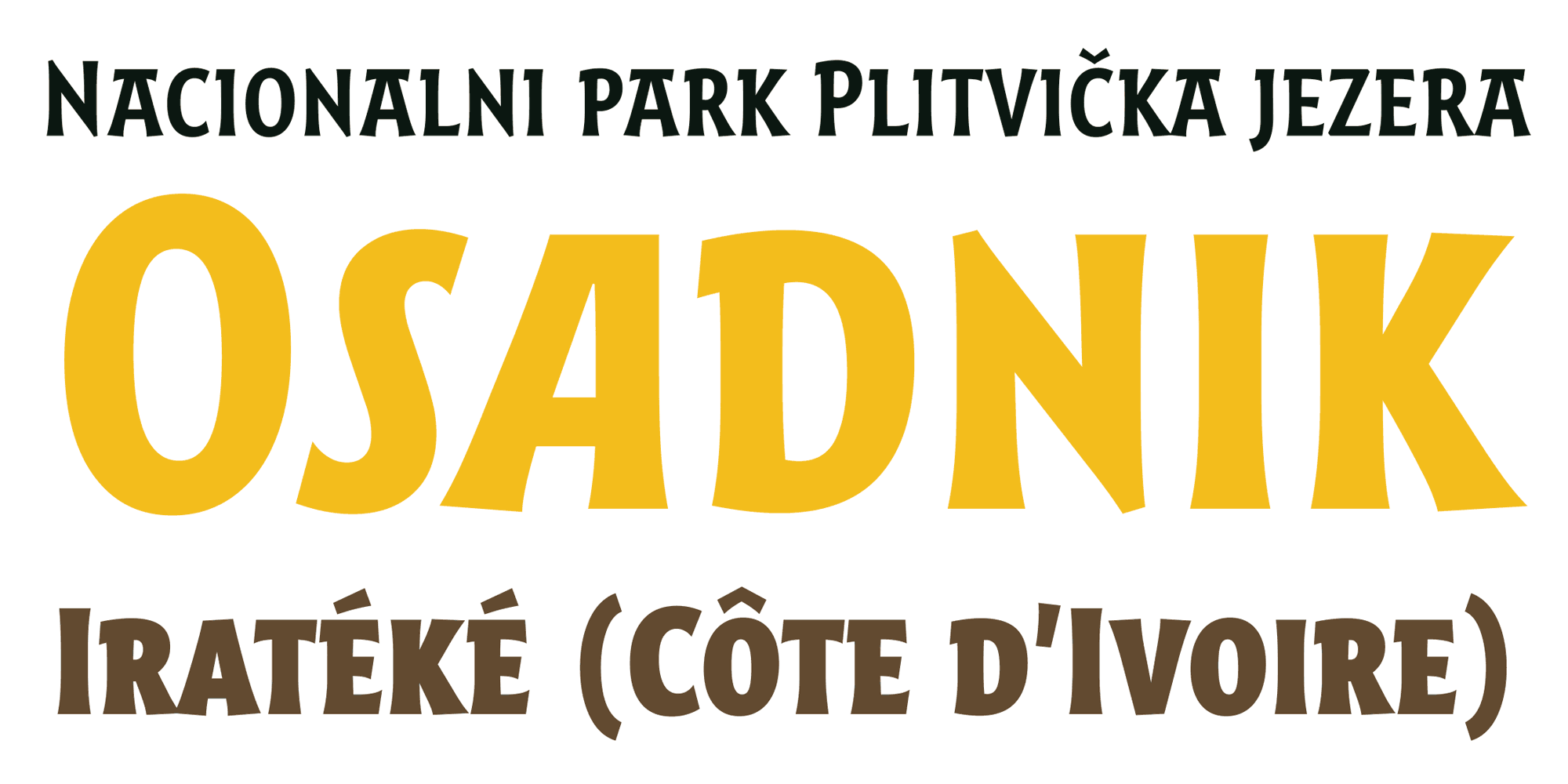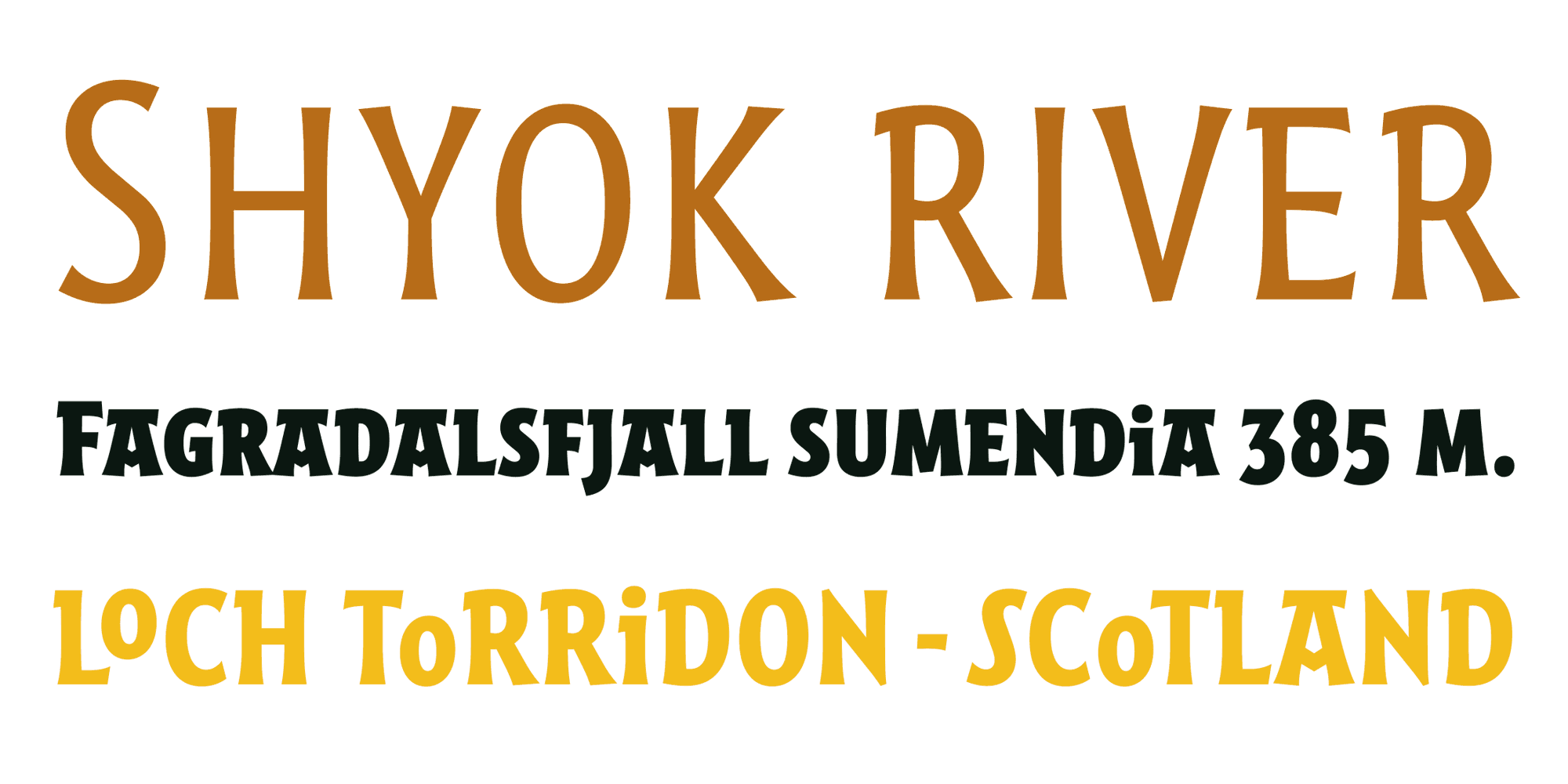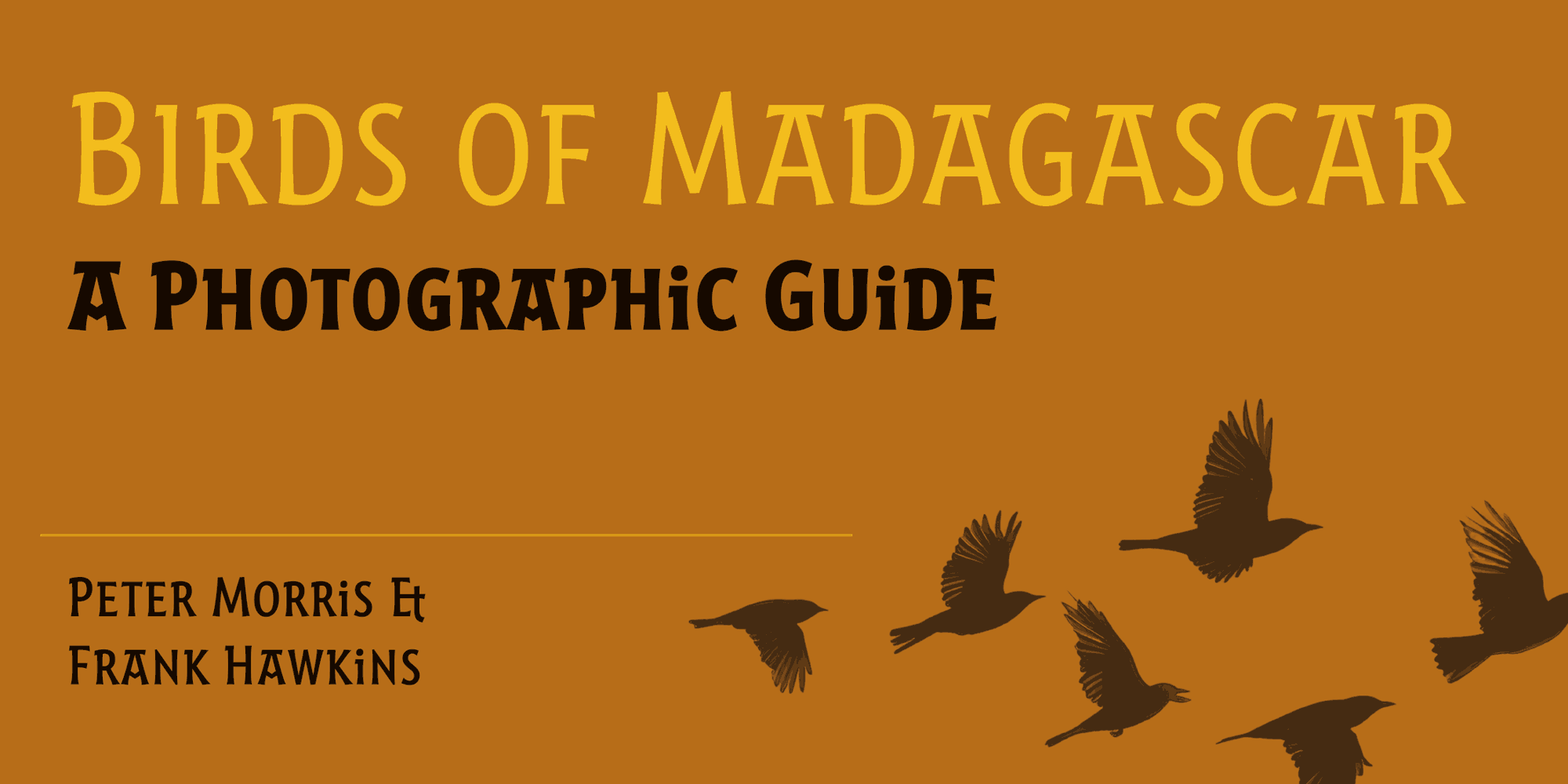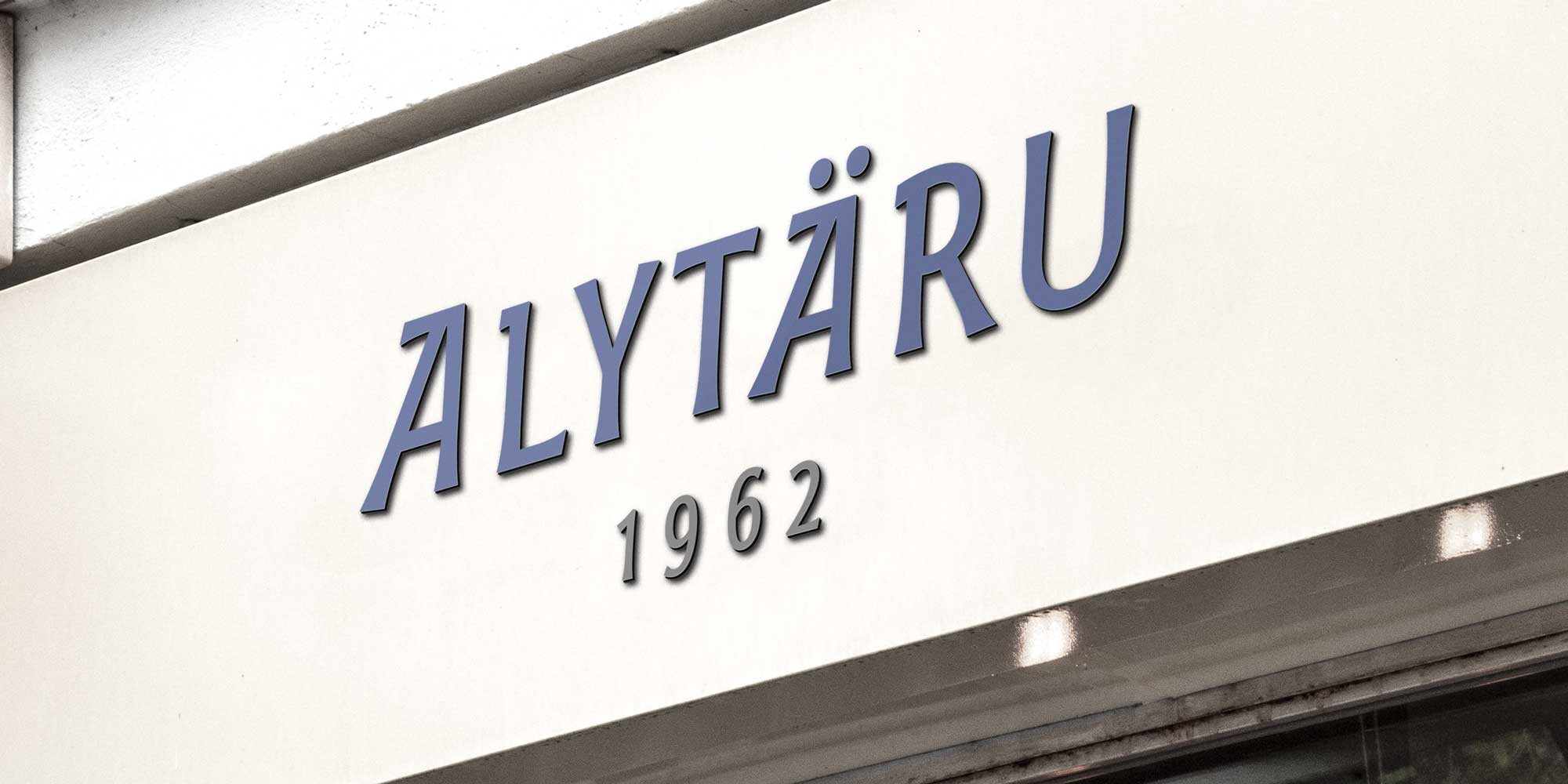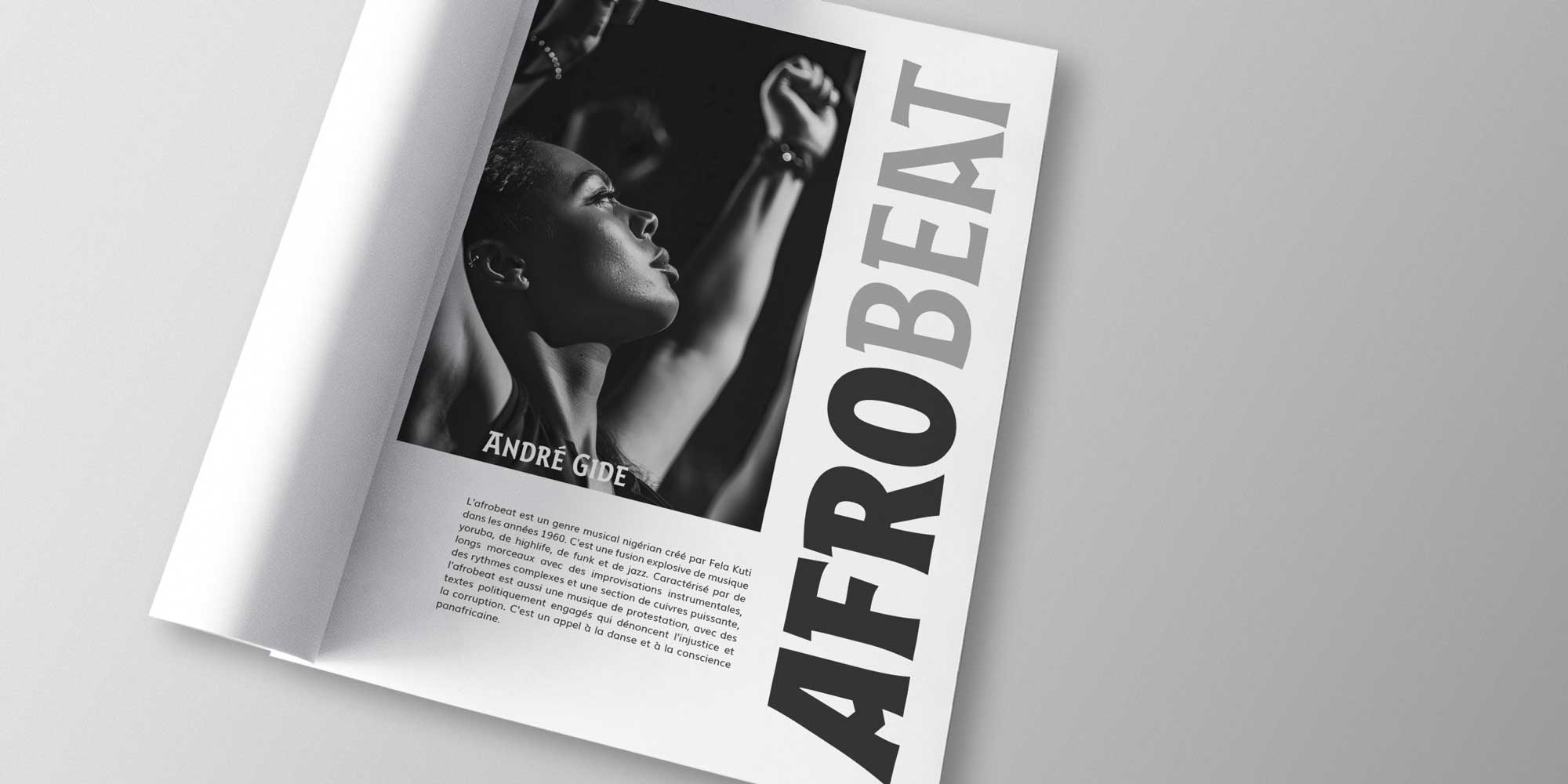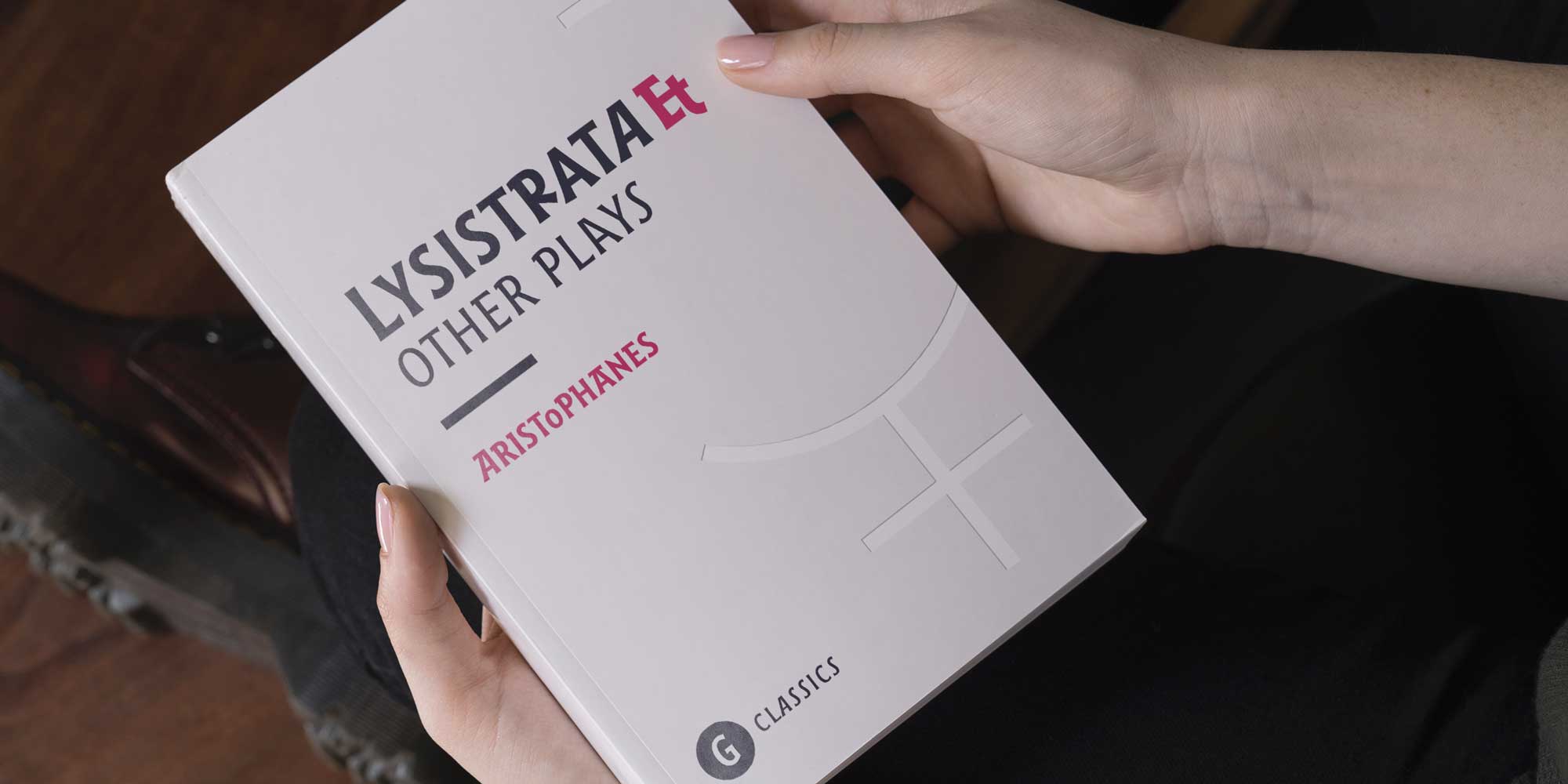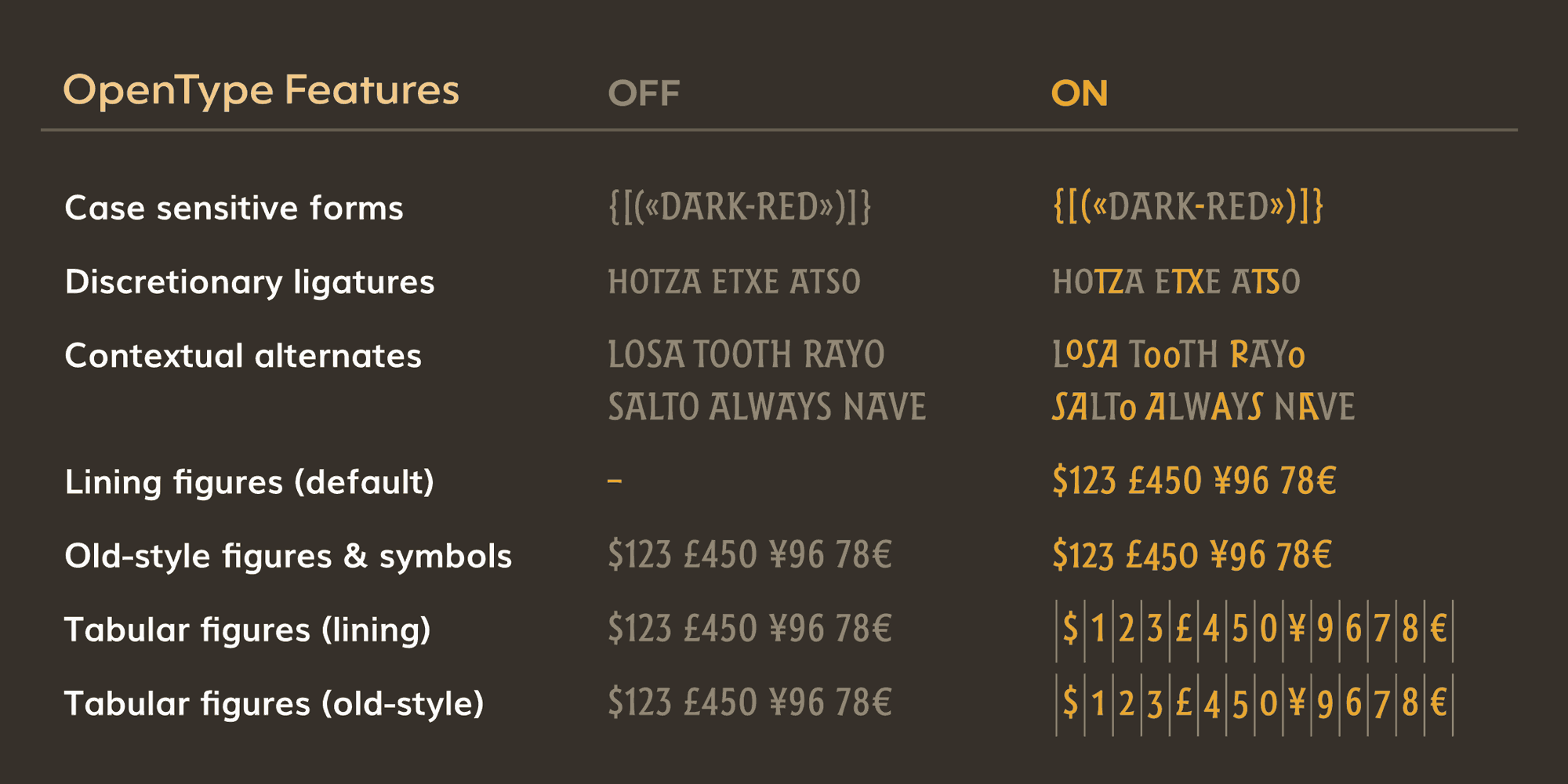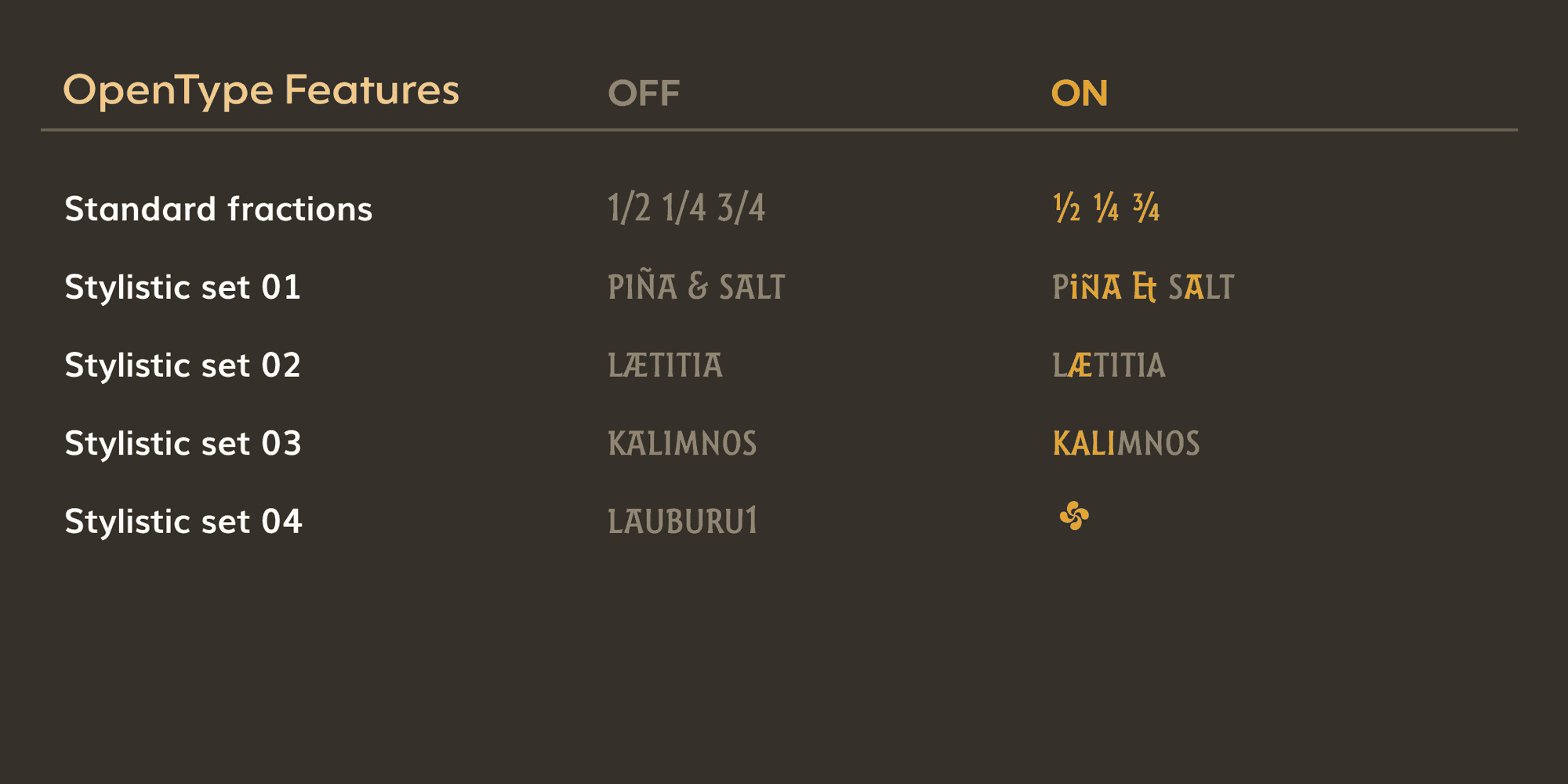
Harri
Harri, meaning ‘stone’ in Basque, is a display font inspired by the distinctive letterforms found in signs and fascias across the Basque Country. This unique lettering style, often used to signify identity, evolved from ancient inscriptions carved on gravestones, which can still be found in the French part of the Basque Country (Behe Nafarroa, Lapurdi, and Zuberoa). Harri incorporates elements from these engraved letterforms, as well as from the current exaggerated shapes derived from them, while bearing in mind their predecessors: Romanesque inscriptions and, ultimately, Roman capitals. This evolution is reflected in the weights of the Harri family, ranging from the clean, formal, Roman-inspired light to the extreme, expressive, Basque-style extra bold.
Harri Condensed brings the personality of Harri into a slimmer, more compact form. The Basque-inspired shapes remain clear and recognizable, while each letter has been carefully adjusted to keep the design balanced and highly legible. It’s designed for situations where space is at a premium —letting you fit more text per line without sacrificing clarity. From headlines and logos to labels and data displays, Harri Condensed makes a strong impression while making the most of every inch of space.
The Harri family has grown! Explore the latest additions to our collection: the clean, modern Harri Sans and the space-efficient Harri Sans Condensed. For ultimate creative control, try Harri Variable—a powerhouse Basque variable font that allows you to seamlessly modulate the weight, width, and flare axes to achieve your exact typographic voice.